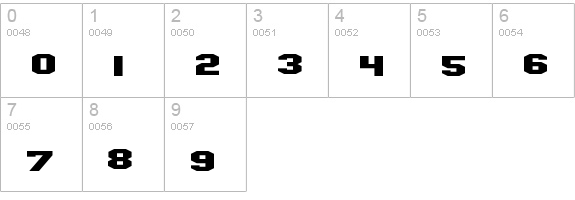
Hollywood Hills Expanded is a distinctive, extended-width variant in the Hollywood typeface family \xE2\x80\x94 well suited to design and typography projects.
Introducing Hollywood Hills Expanded font – a sleek and stylish display typeface perfect for adding a touch of glamour and sophistication to your designs. This font features elongated characters with sharp angles, exuding a sense of luxury and elegance. Hollywood Hills Expanded is ideal for creating eye-catching headlines, logos, posters, and more. What makes Hollywood Hills Expanded even more appealing is that it is available for free download at FontsMarket.com. This means you can easily access this stunning font and use it in your projects without any cost. So go ahead, elevate your design game with Hollywood Hills Expanded font today!